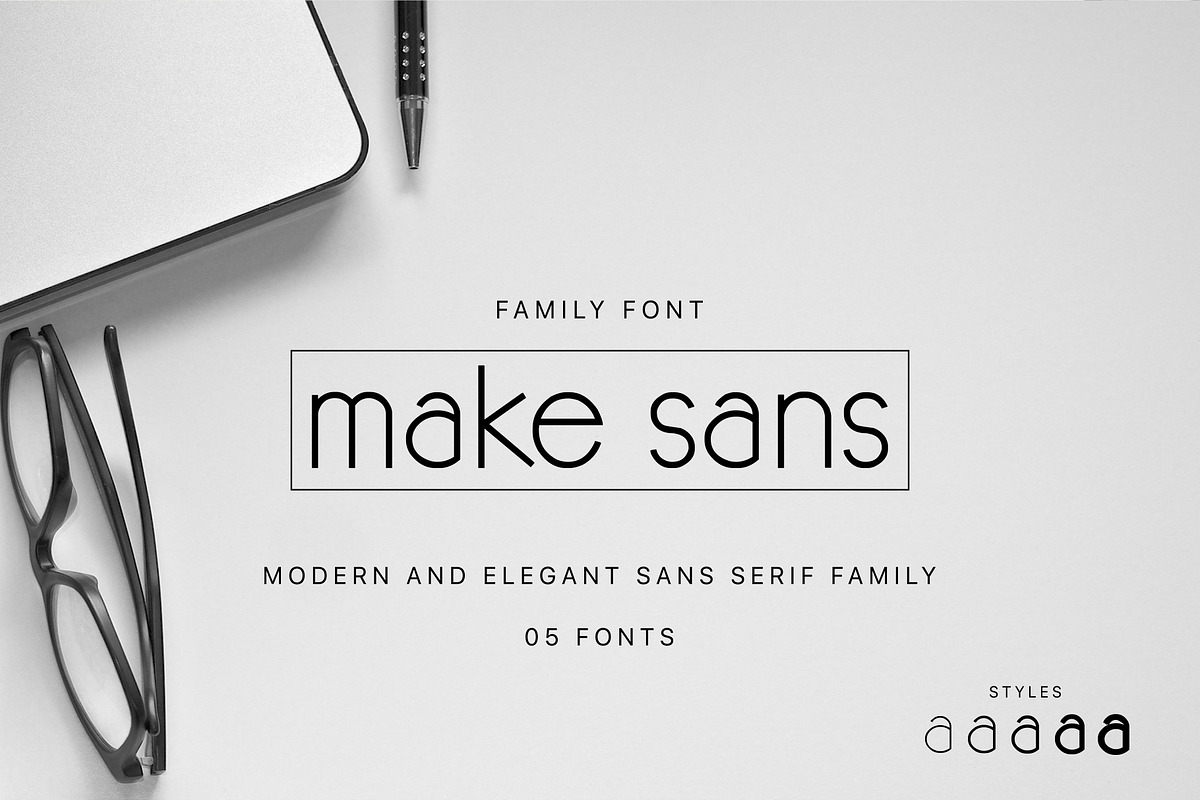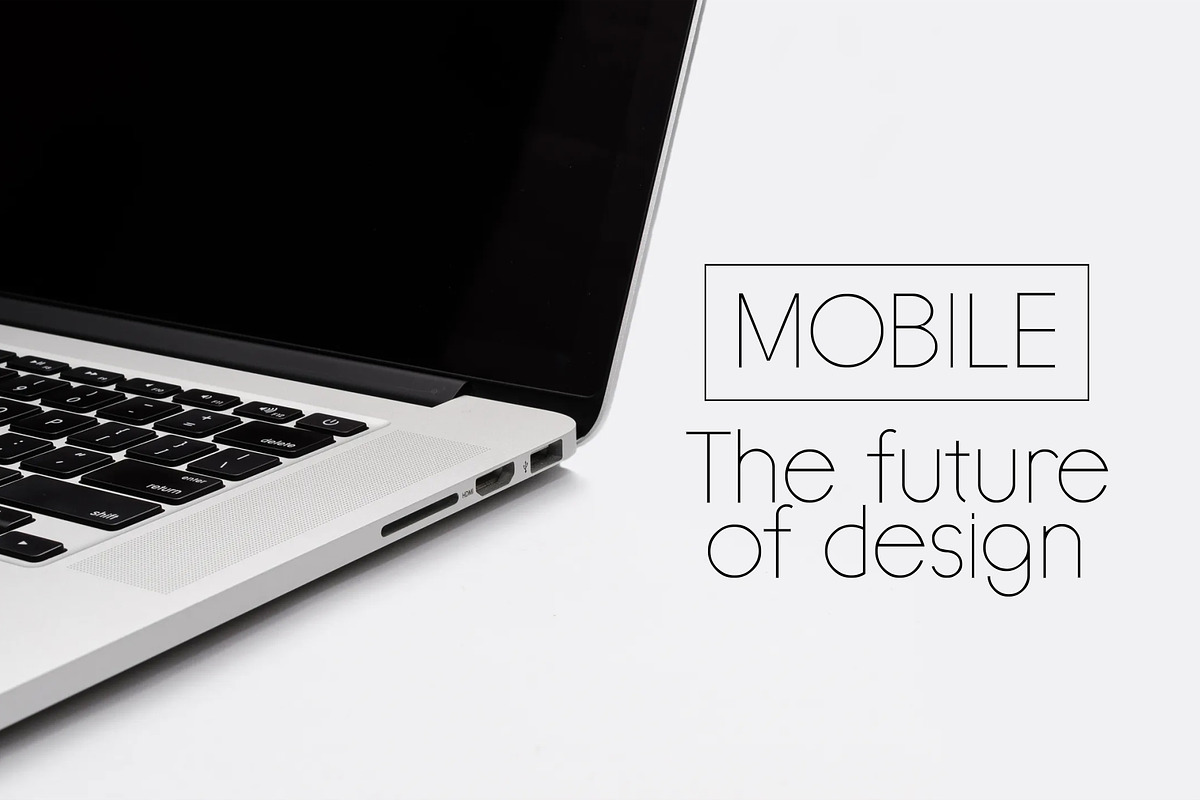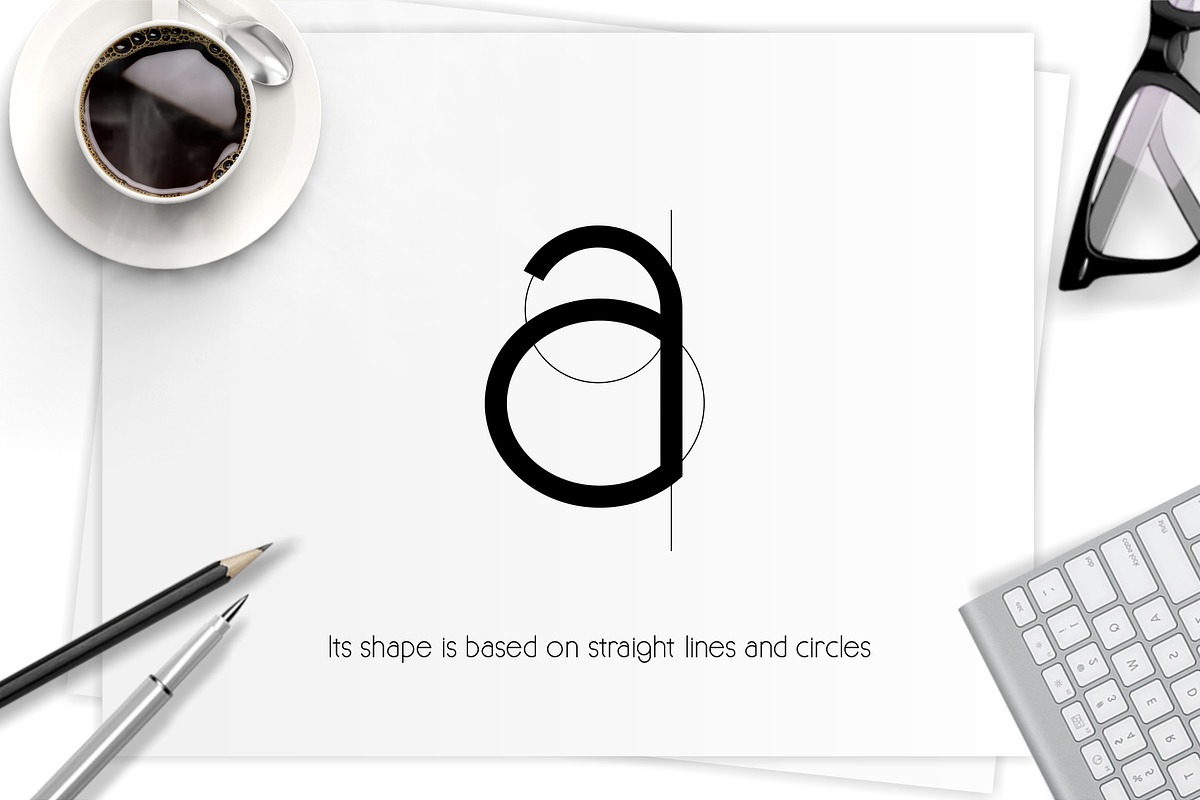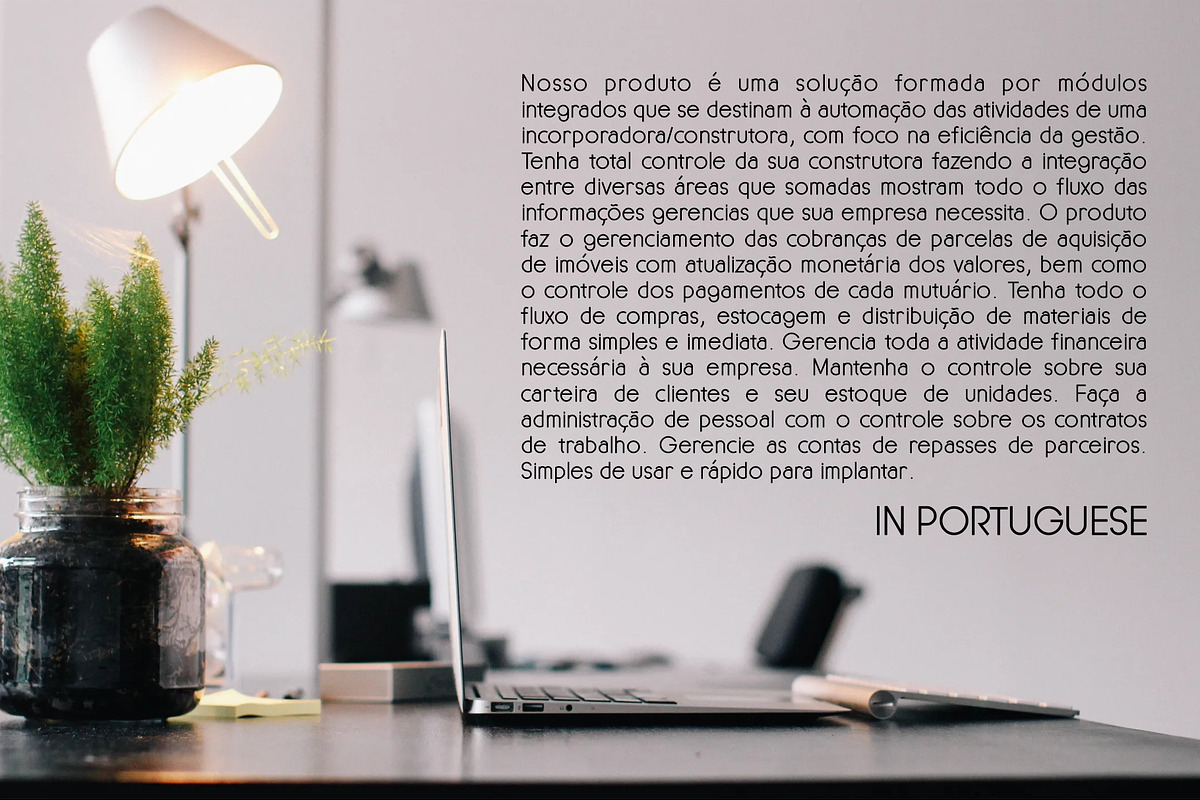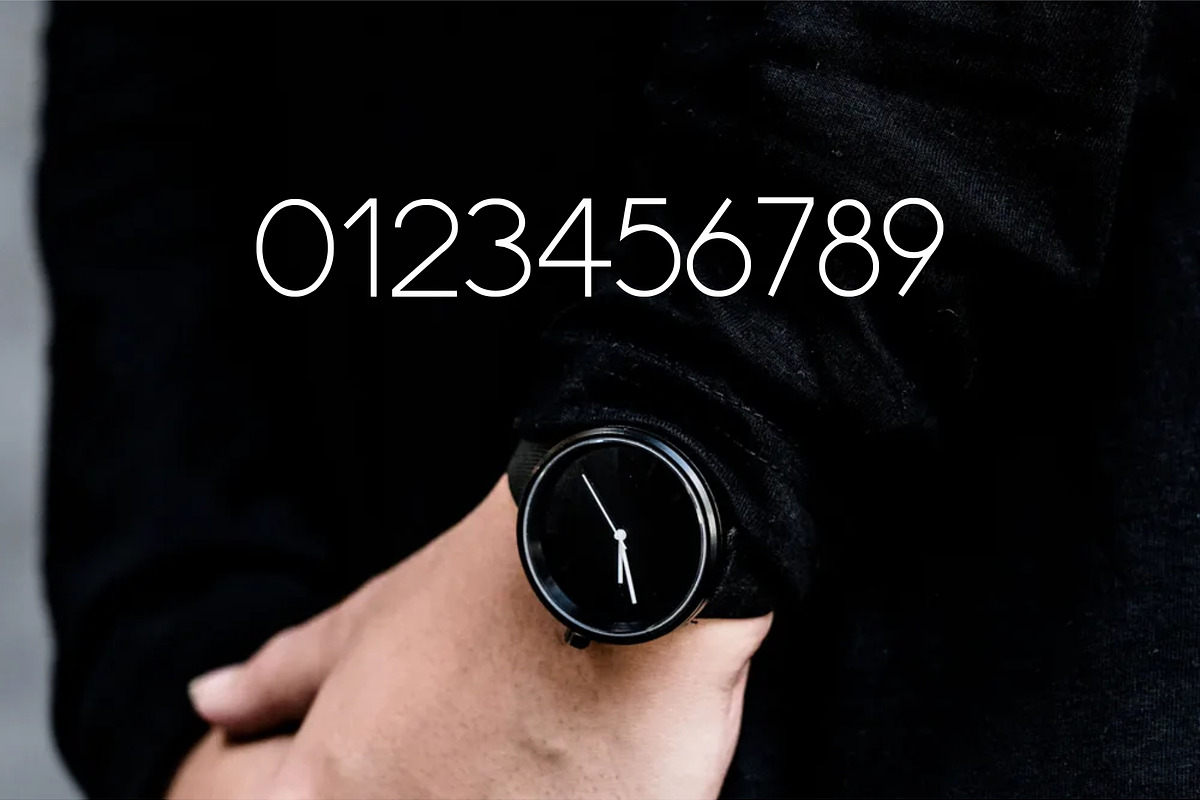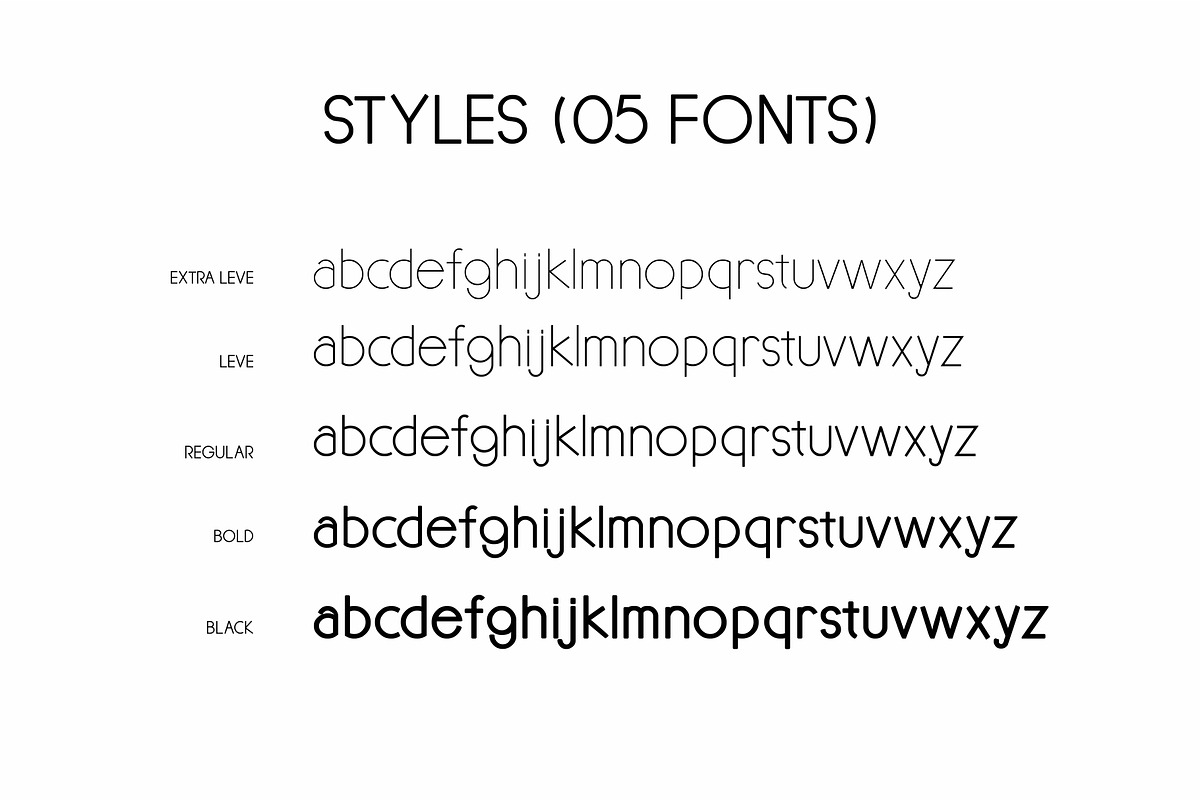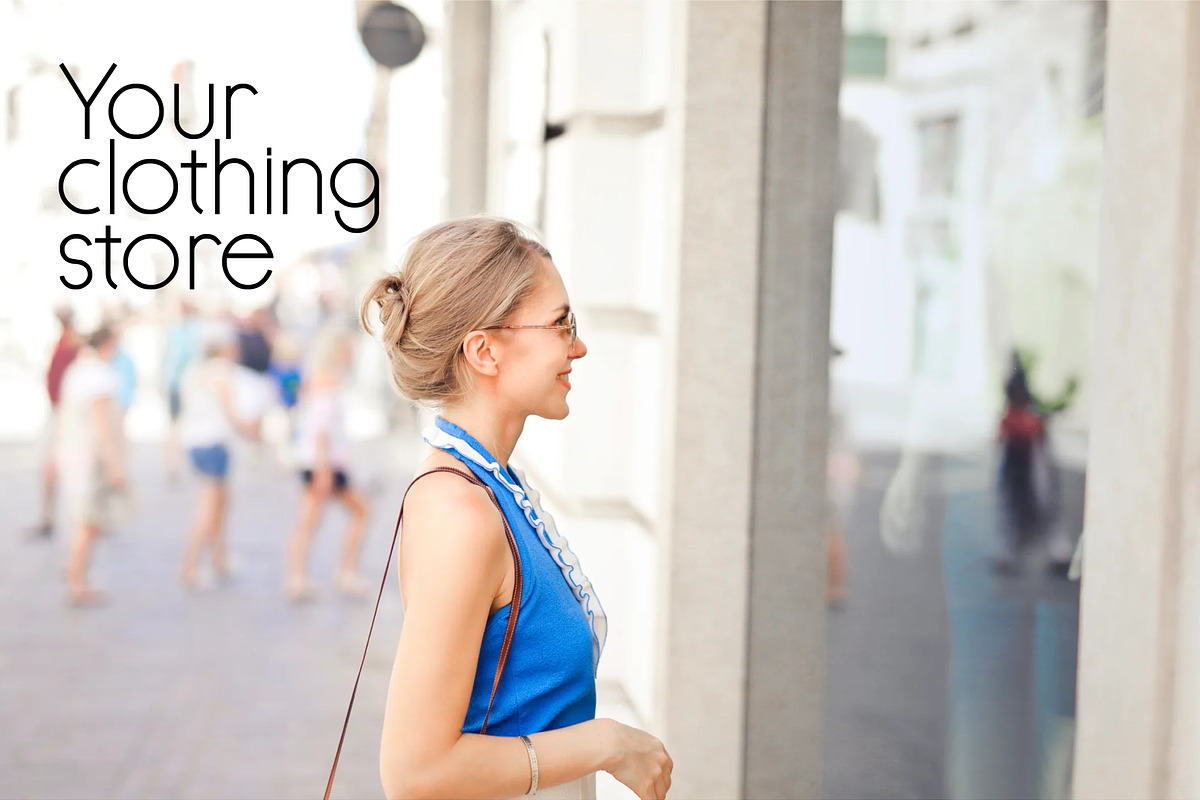
MAKE SANS - Elegant Family Font
MAKE SANS it is a modern fountain with great style and elegance.
MAKE SANS has a family of 05 font styles:
MAKE SANS - Elegant Family Font by Marcelo Inez fits naturally into Branding, posters, packaging, typography.